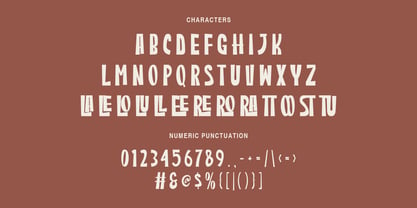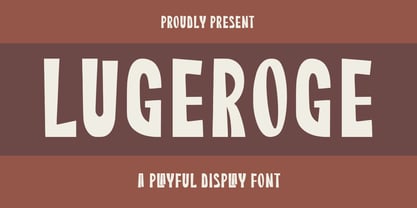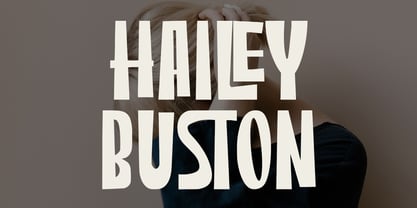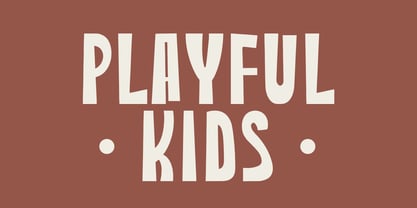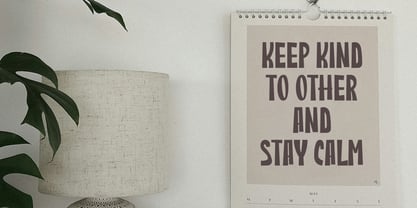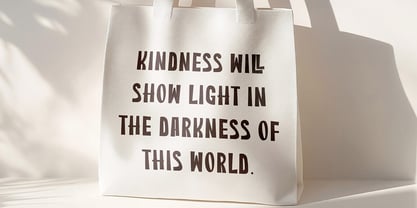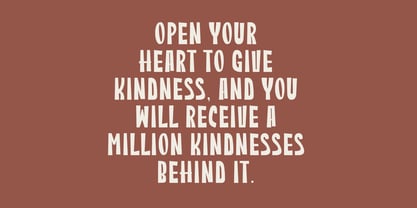
MC Lugeroge
by Maulana Creative
The MC Lugeroge Font Family was designed by Gilang Maulana and published by Maulana Creative. MC Lugeroge contains 1 styles. More about this family
Lugeroge is a playful display font with a bold and quirky personality, perfect for bringing fun and creativity to your projects. Its irregular shapes and unique letterforms make it stand out, giving any design a lively and cheerful vibe. This font is ideal for children’s books, posters, branding, packaging, social media posts, and any project that needs a touch of friendliness and joy.
With its handcrafted look, Lugeroge combines modern charm with a retro feel, making it versatile for both casual and professional designs. Whether you’re creating educational materials, playful quotes, or eye-catching logos, this font will add warmth and originality to your work.
Designers: Gilang Maulana
Foundry: Maulana Creative